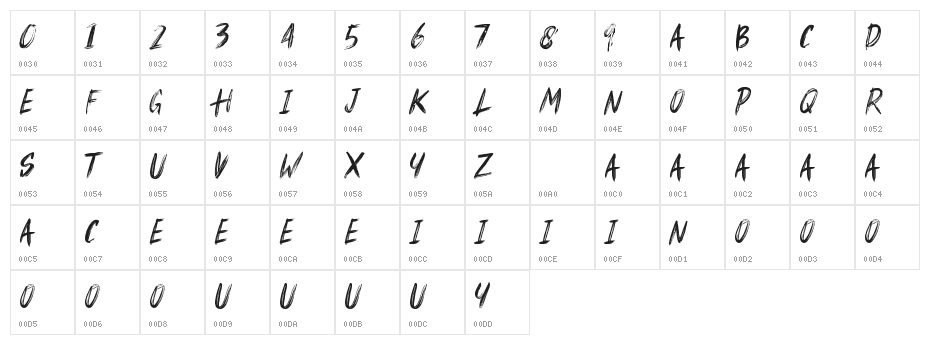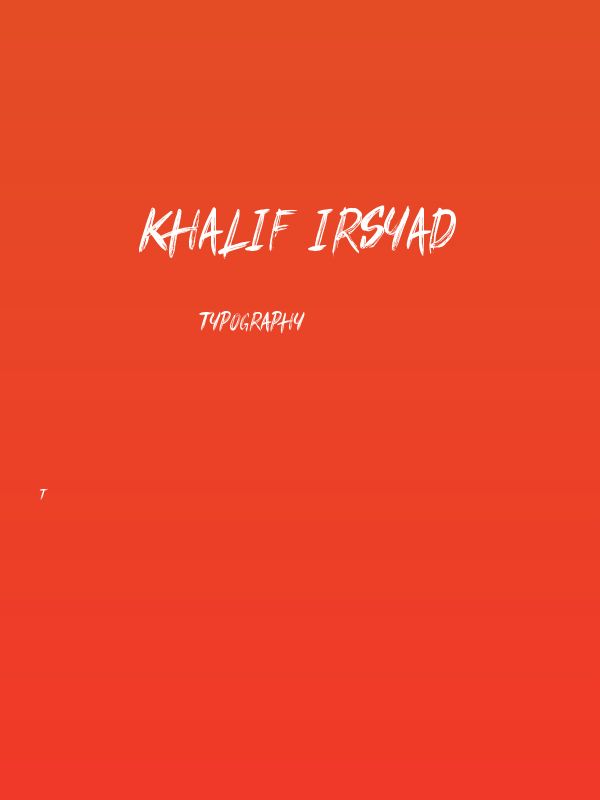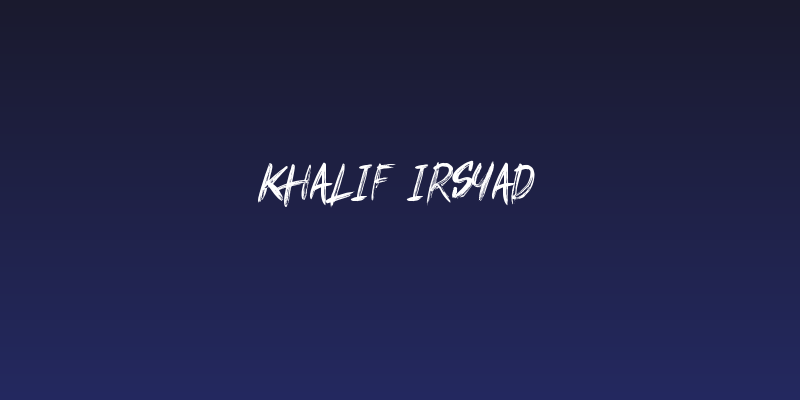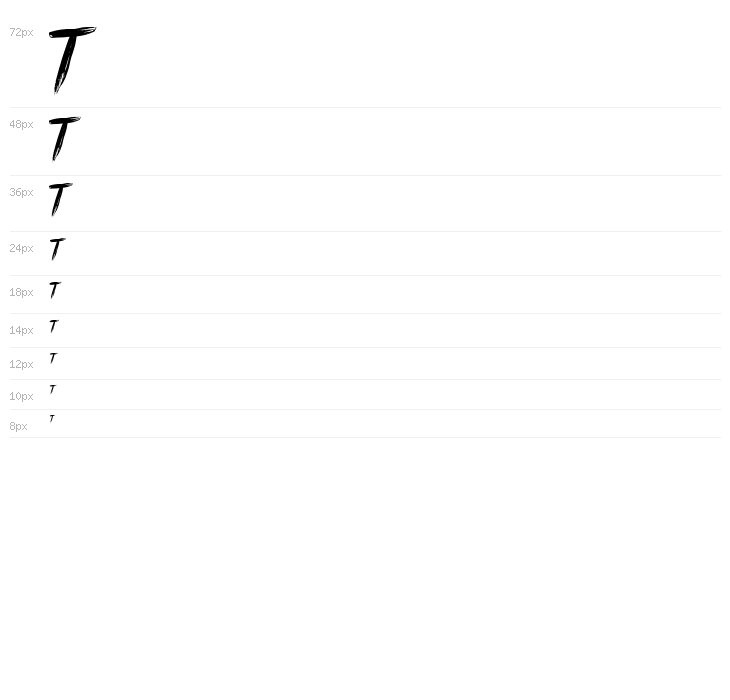
Khalif Irsyad Font
Khalif Irsyad Description
This font features a dynamic and energetic brush style, characterized by its bold, sweeping strokes and rough edges. The letters exhibit a hand-painted appearance, giving them a raw and expressive quality. The uppercase and lowercase alphabets maintain a consistent style, with each character displaying unique variations that add to the font's artistic flair. The numbers and special characters are crafted with the same attention to detail, ensuring a cohesive look across all elements. This font's design is perfect for projects that require a bold and impactful visual statement.
| Proposed Projects | Ideal for posters, album covers, branding, and any project needing a bold, artistic touch. |